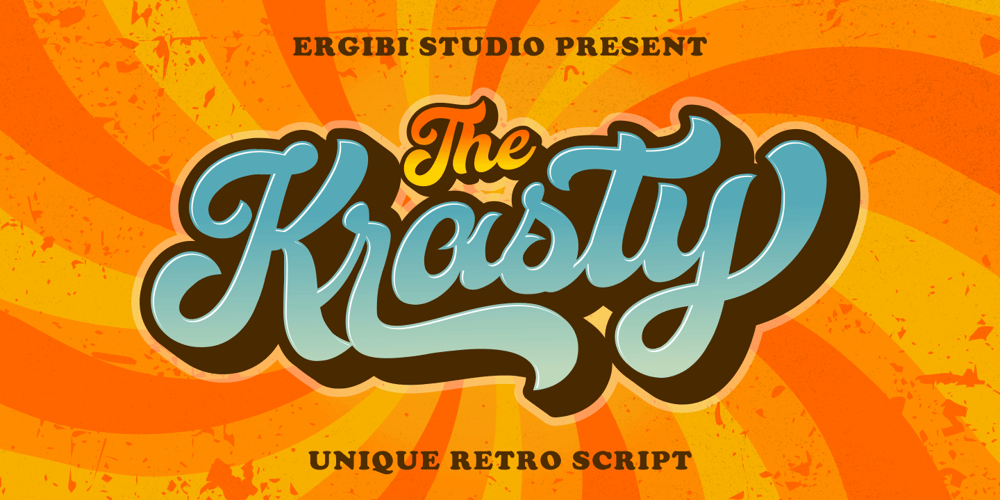
Krasty Font Family was designed by Riyadh Rahman and published by Ergibi Studio. Krasty contains 2 styles and family package options. Krasty has a unique retro look, inspired by letters from the past. It includes an extrusion version so you can create unique retro effects very easily. These work well with invitations, labels, logos, magazines, books, greeting / wedding cards, packaging, fashion, makeup, stationery, novels or any type of advertising purpose.Krasty includes uppercase, lowercase, numbers and multilingual support, as well as swashes on letters and additional bonus swashes that will make this font look more perfect for retro scenarios.